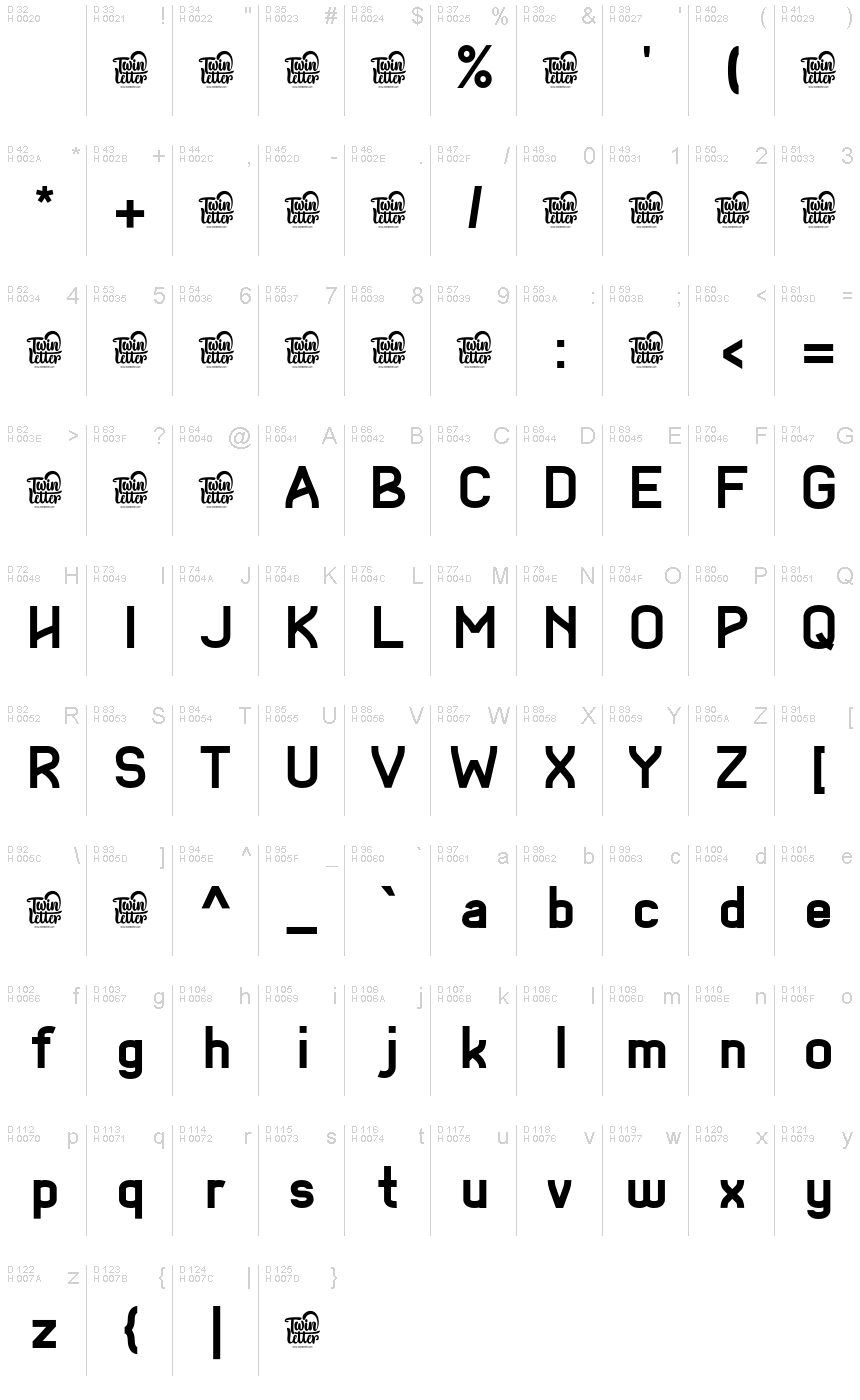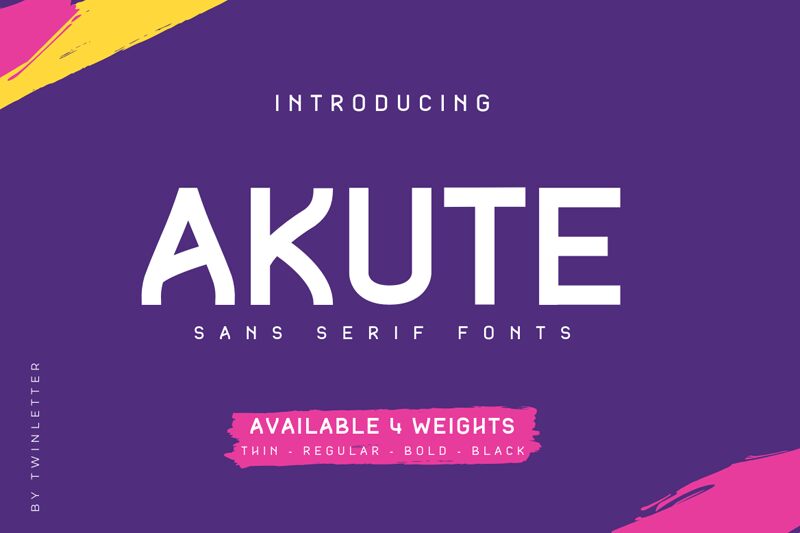
AkuteBlack
Akute Black font by Twinletter is a modern sans serif typeface with a minimalistic design and strong presence. Compatible with other weights from its family, this geometric font makes the perfect free font to contribure to your next design projects.
Use Akute Black in headings and titles for magazines as well as websites or experiment with logotype branding and advertising. Let it upgrade you packaging designs when used on boxes, bottle lables, or tags. Other possibilities include posters, invitations, cards, shopping bags and more!